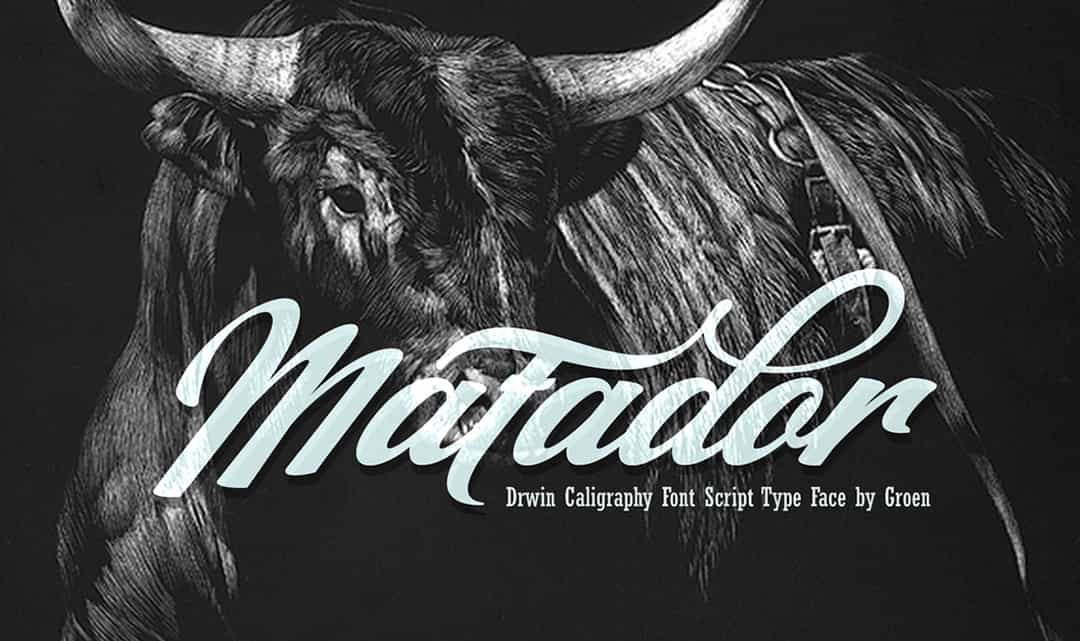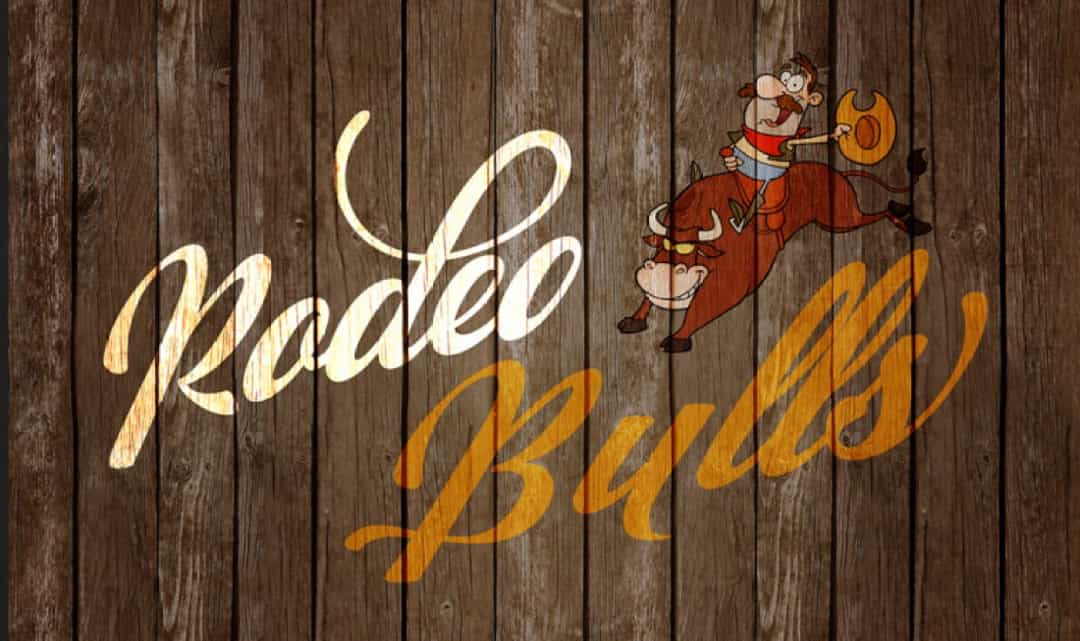
Matador comes with brush-lettered looks giving it that extra edge in terms of style. Beautiful and distinctive at one and the same time, its blend of old school types with the modern-day types helps to make this font distinct.